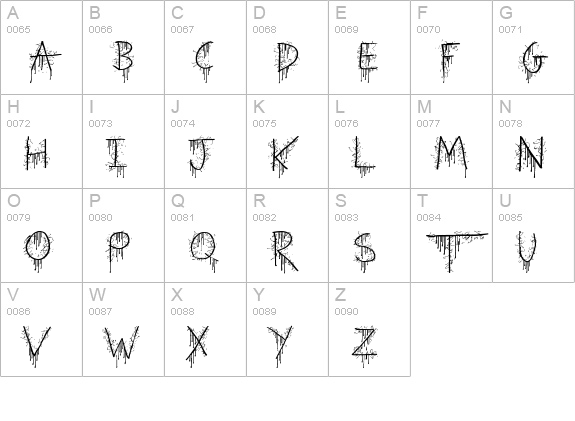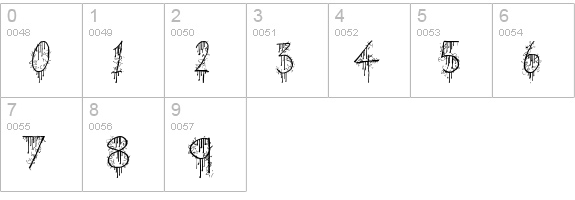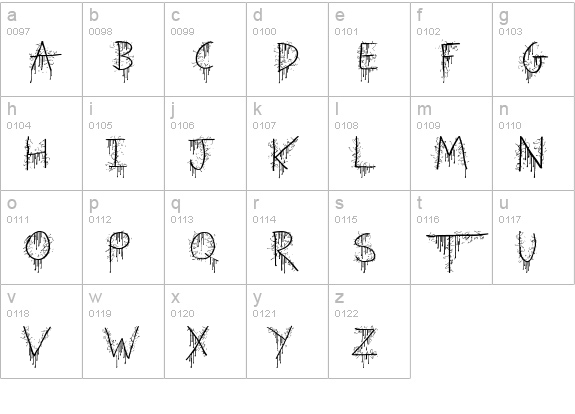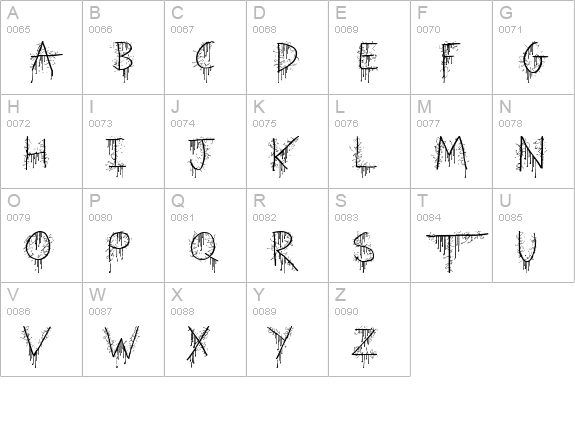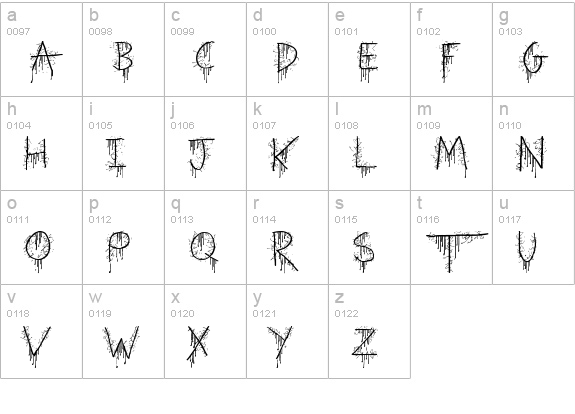
Introducing Beware of the Hogs font, a bold and captivating typeface that will make your designs stand out from the crowd. This font exudes a sense of power and strength, with its sharp edges and aggressive letterforms. It's perfect for projects that require a strong and impactful presence, such as posters, logos, and branding materials. Beware of the Hogs font is a versatile typeface that can be used in a variety of settings. Whether you're looking to create a striking headline or add a touch of personality to your body text, this font has got you covered. Its unique and eye-catching design will grab the attention of your audience and leave a lasting impression. One of the best things about Beware of the Hogs font is that it's free! That's right, you can download this amazing font for absolutely no cost at FontsMarket.com. We believe that everyone should have access to high-quality fonts, and we're thrilled to offer Beware of the Hogs font as a freely available resource. So don't wait any longer, unleash the power of Beware of the Hogs font in your next design project. Download it now at FontsMarket.com and take your designs to the next level. With its bold and commanding presence, this font is sure to make a statement and leave a lasting impact on your audience. Get ready to turn heads and grab attention with Beware of the Hogs font.